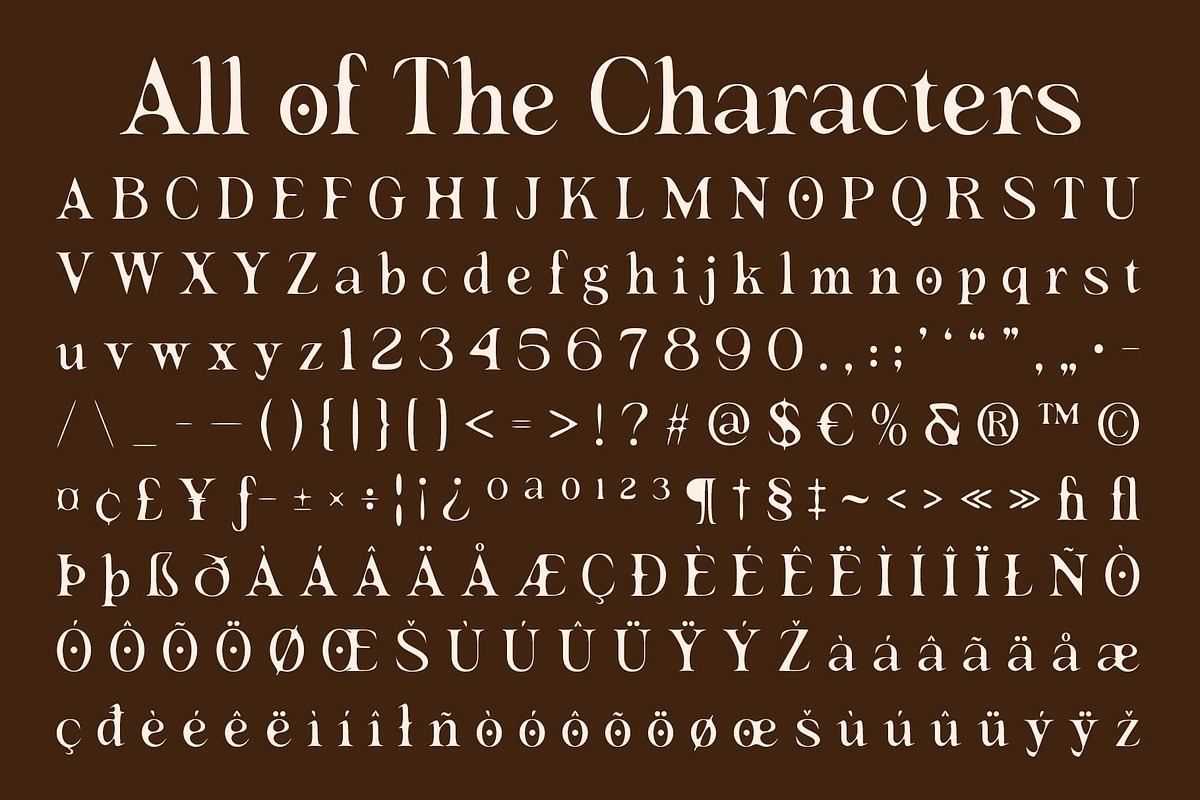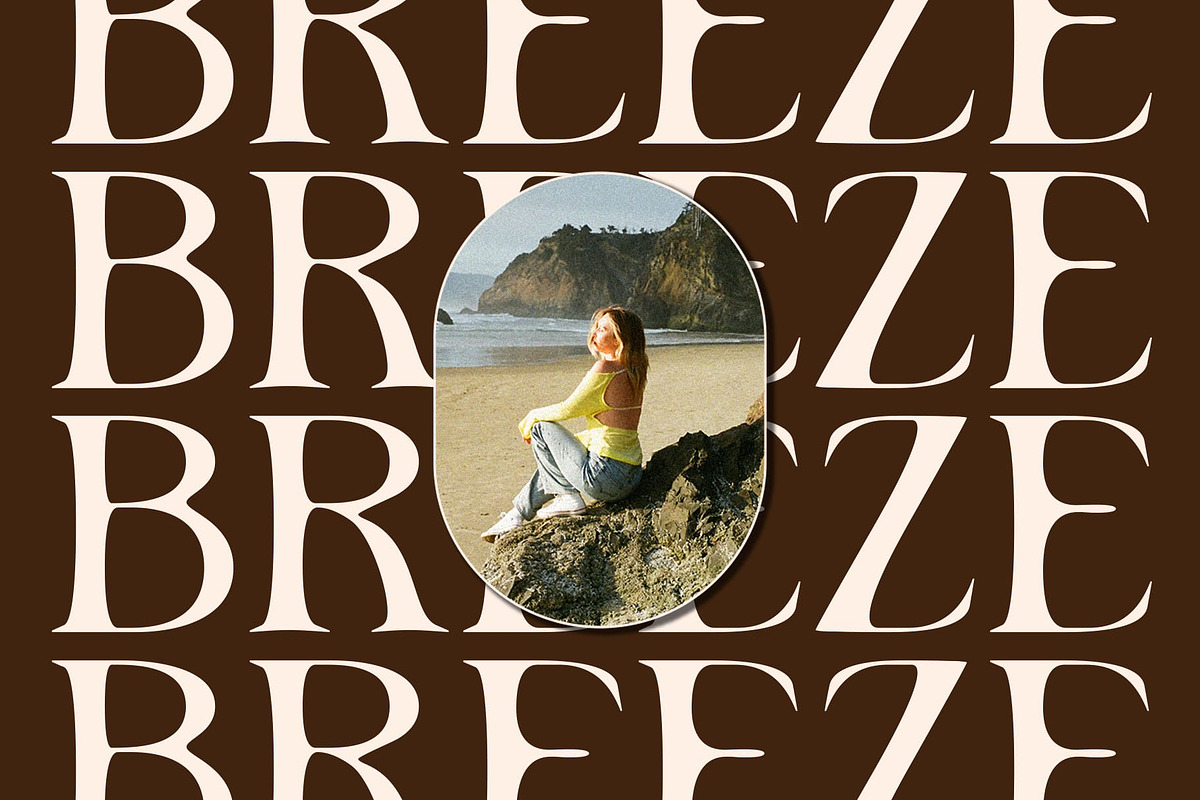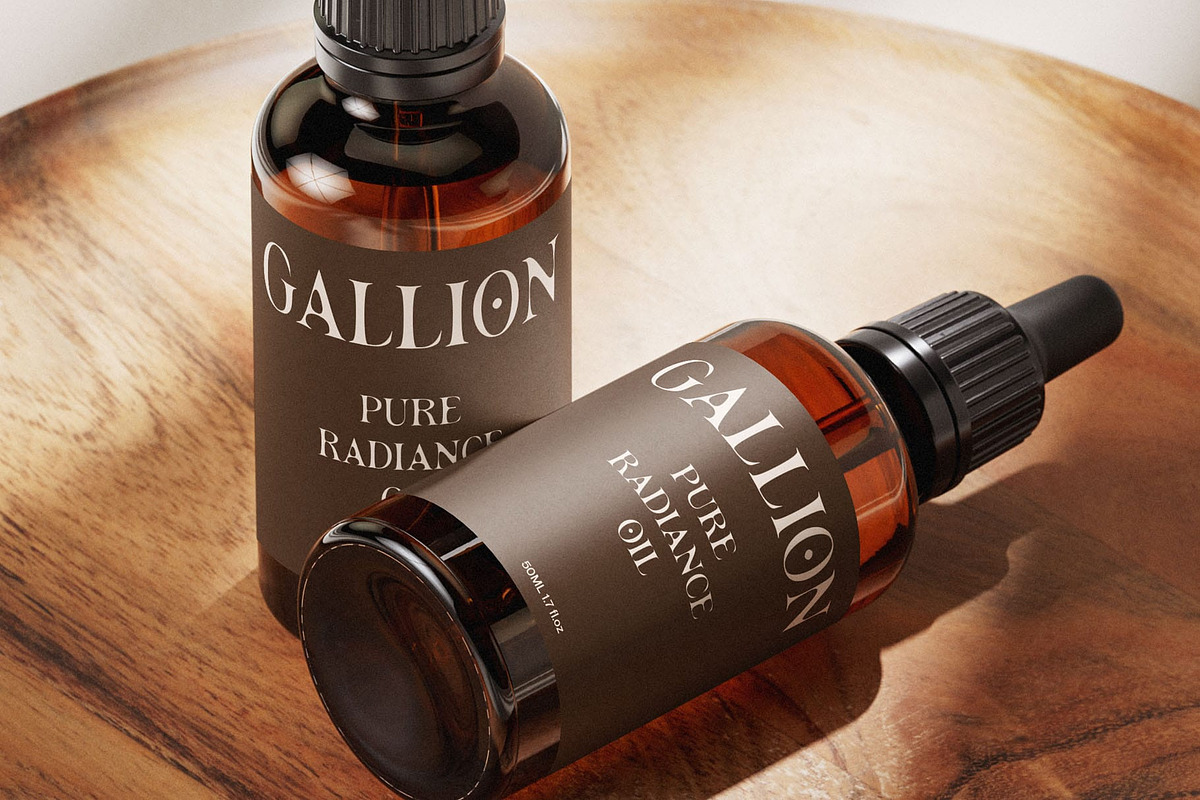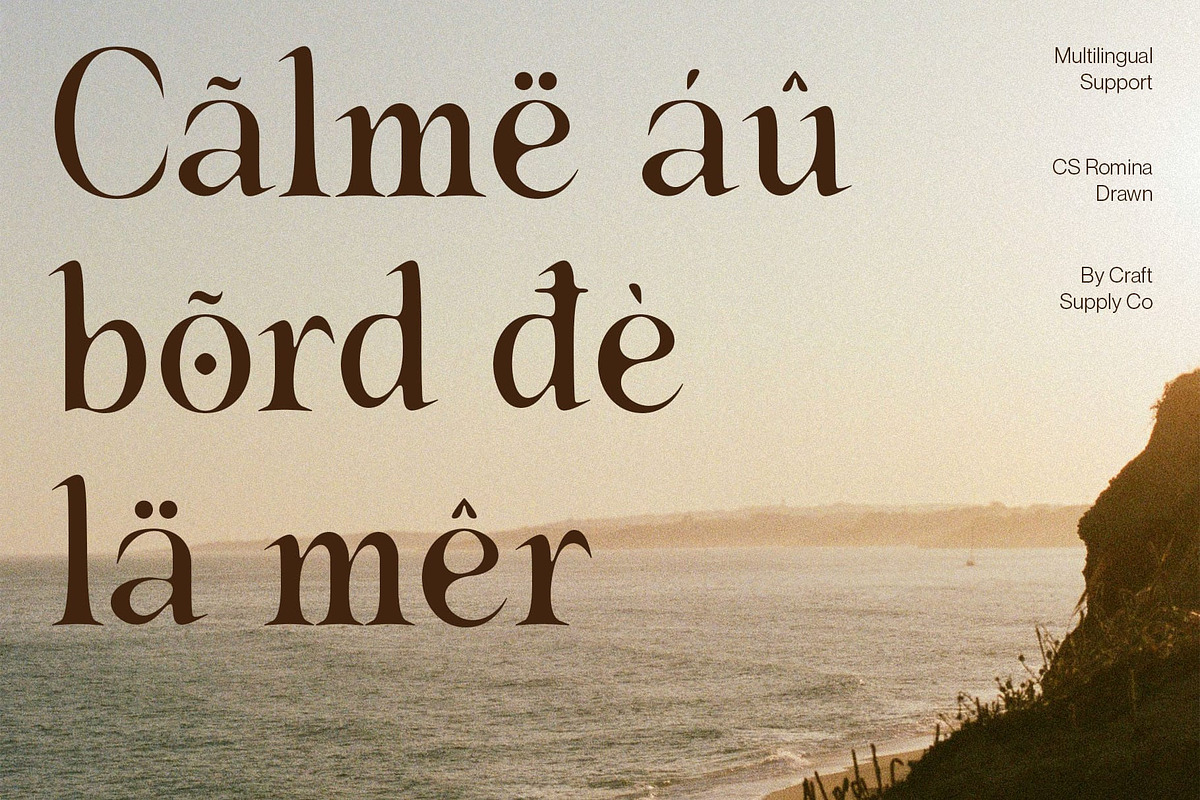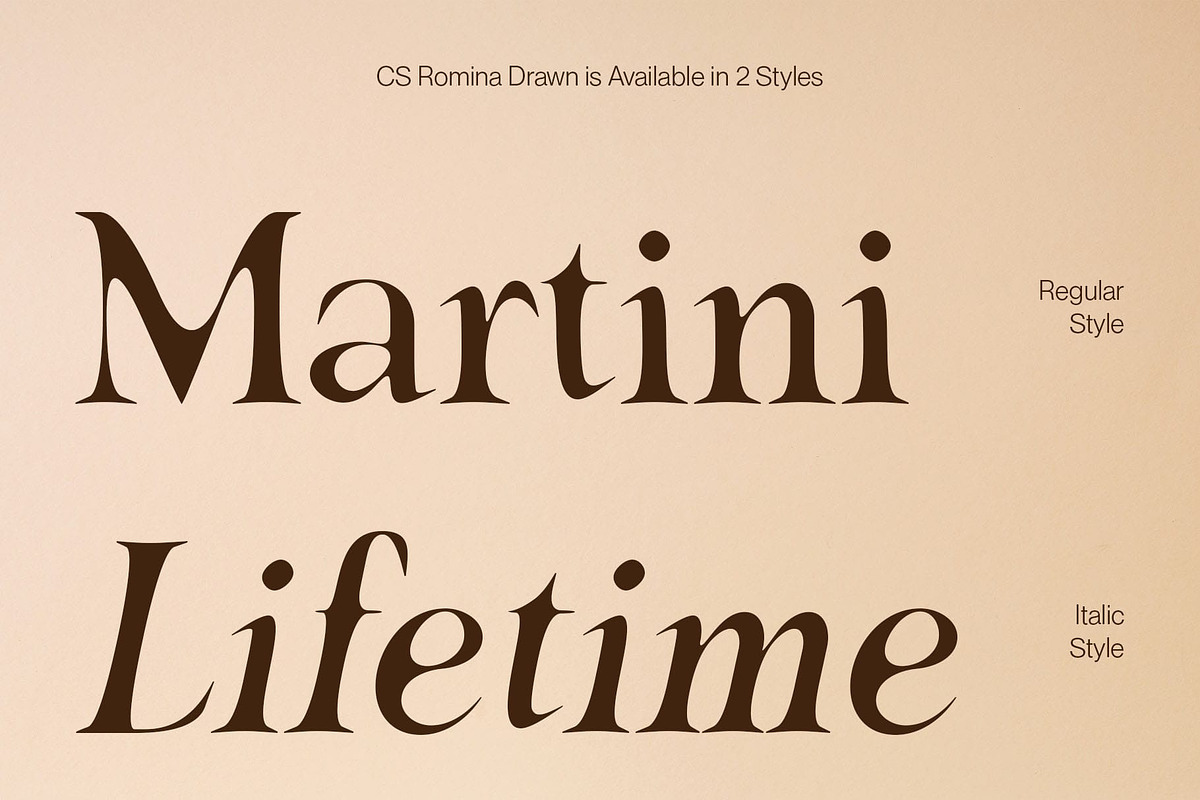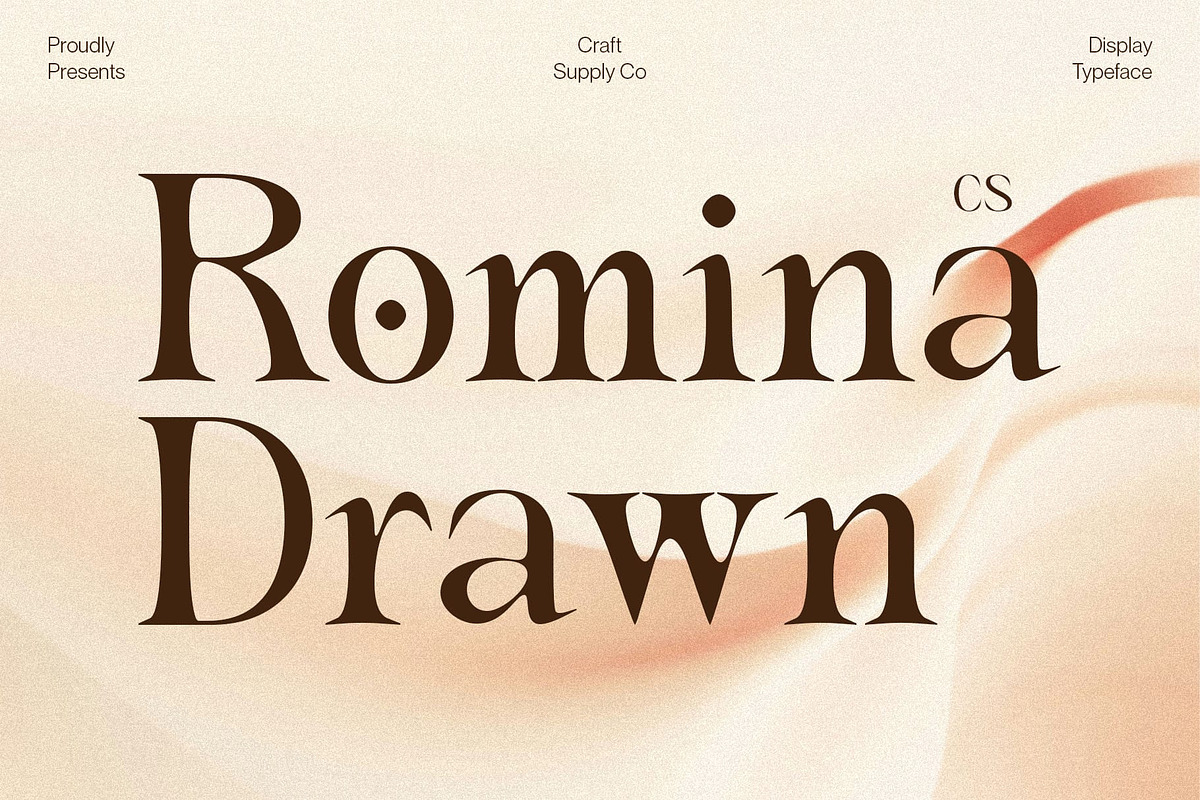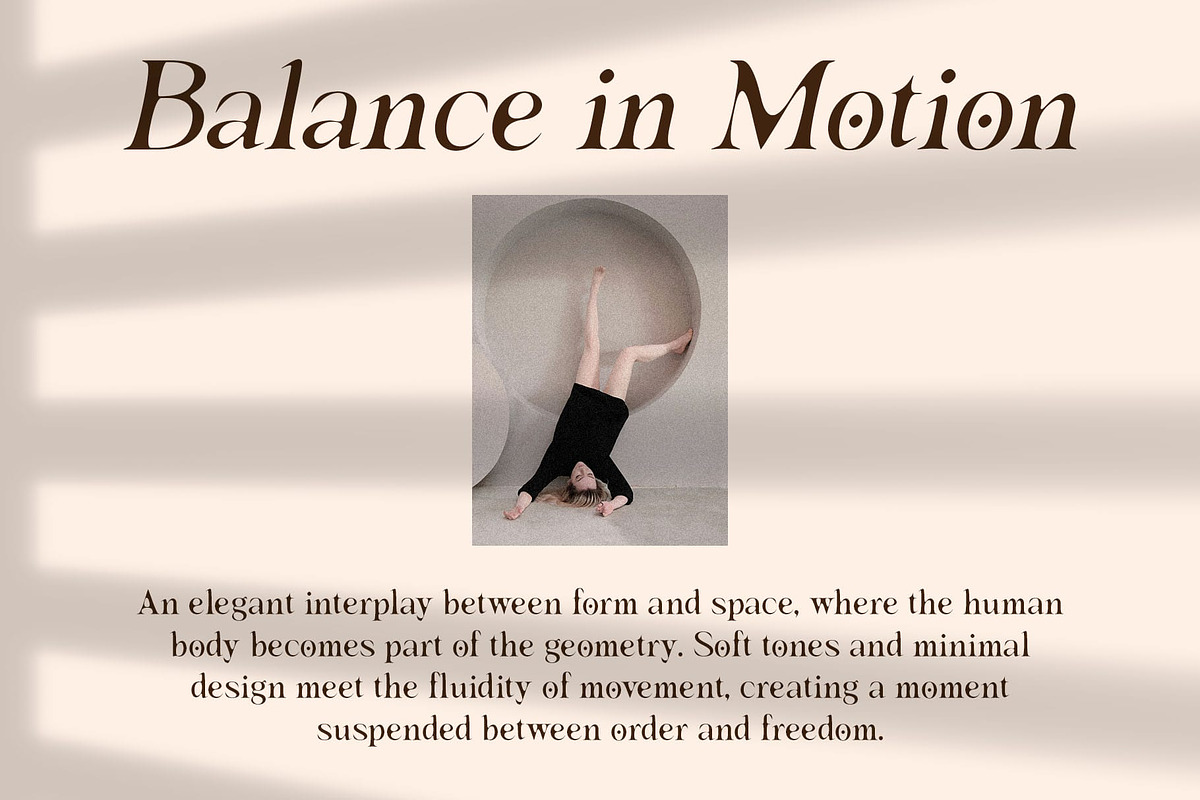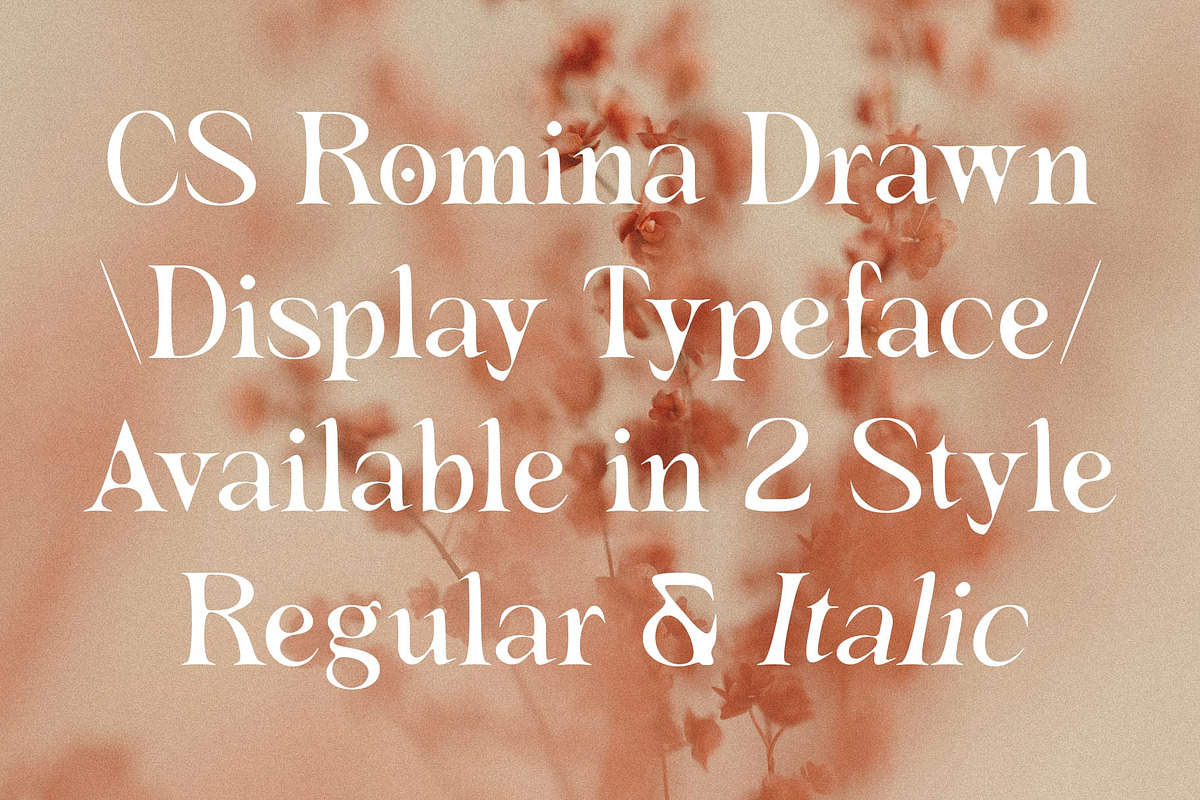
CS Romina Drawn
CS Romina Drawn: Modern Serif Display with Handmade Elegance
Modern Serif Display with Drawn Effect This font is a modern serif font featuring clean, contemporary shapes. Its elegant and sophisticated design makes it ideal for projects that require a polished and visually appealing aesthetic.
Subtle Handmade Texture for Artistic Flair Enhanced with a drawn effect, each character gains a delicate handmade texture, adding depth, individuality, and artistic personality. The manual detailing transforms simple, modern forms into expressive, captivating typography.
Elegant, Sophisticated, and Artistic This artistic font balances modern clarity with subtle artisanal touches. Its refined letterforms and graceful curves create a typeface that is both contemporary and timeless, offering visual interest without sacrificing readability.
Ideal for Branding, Editorial Layouts, Posters, and Creative Projects Perfect for luxury branding, editorial layouts, posters, or other creative applications, this sophisticated font adds sophistication, elegance, and unique character to any design. Its combination of modern serif styling and handmade nuance ensures a polished and memorable impression.
Elevate Designs with Subtle Refinement With clean proportions, handcrafted detailing, and contemporary styling, this stylish font delivers a typeface that enhances every project. It’s a versatile choice for designers seeking a modern, elegant, and artistically expressive font.